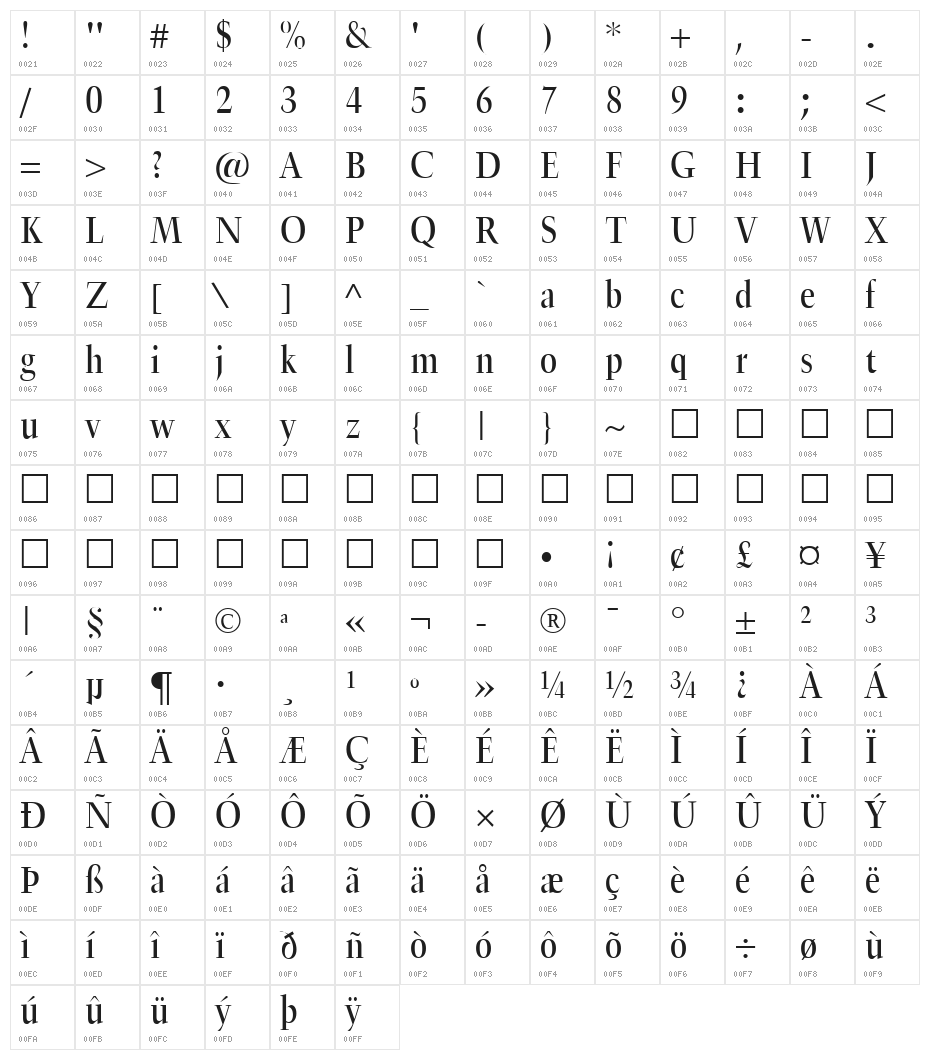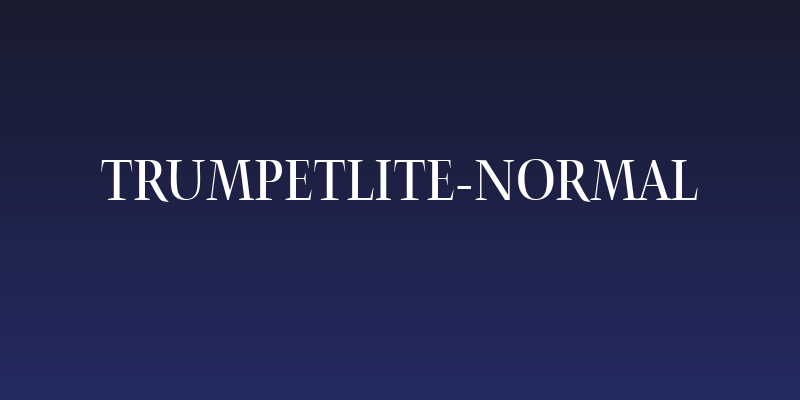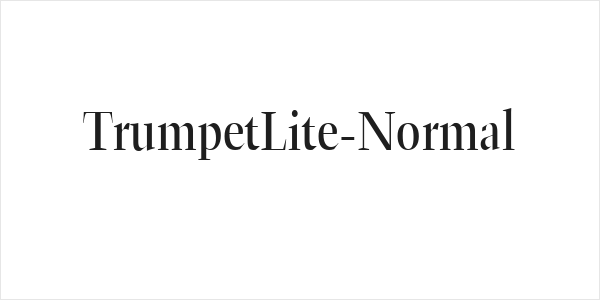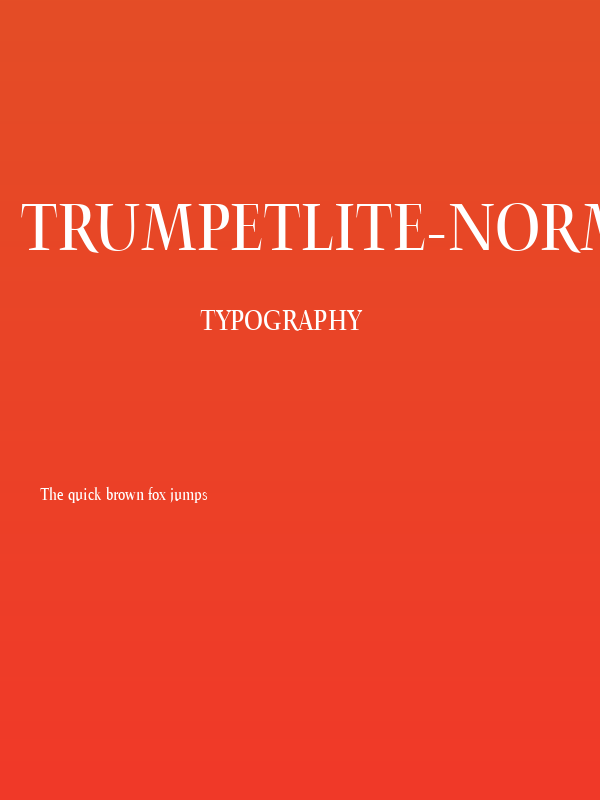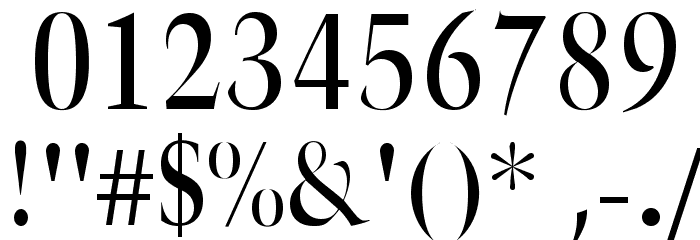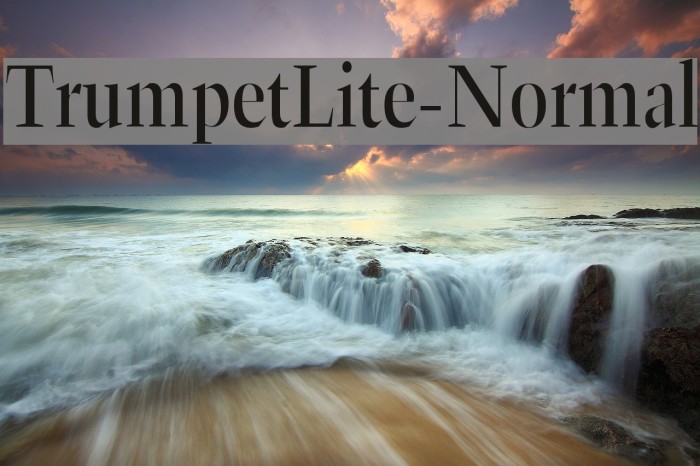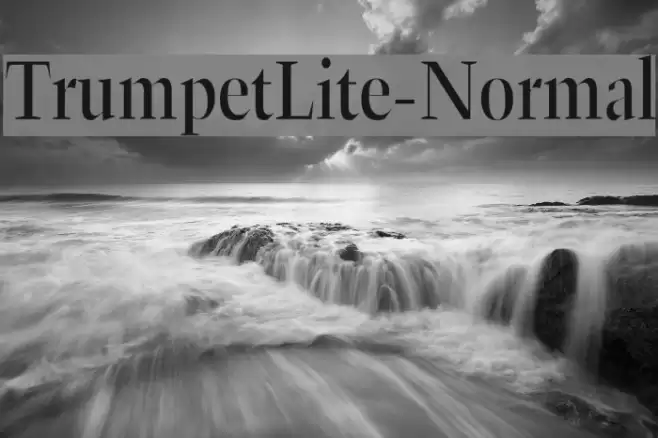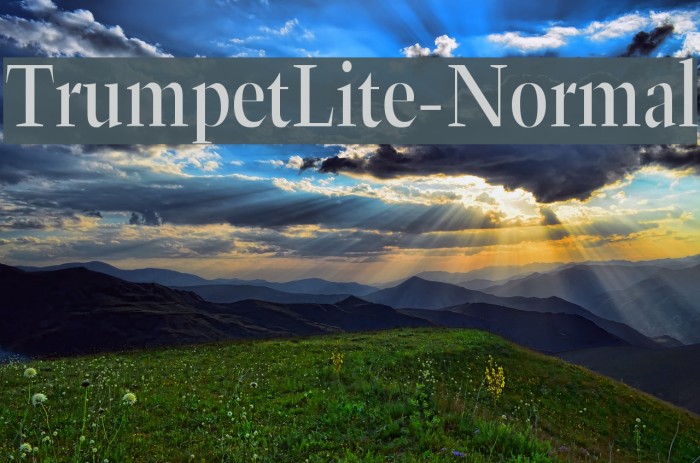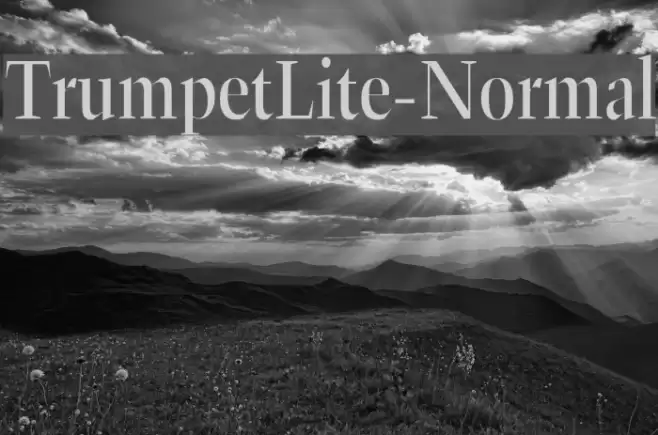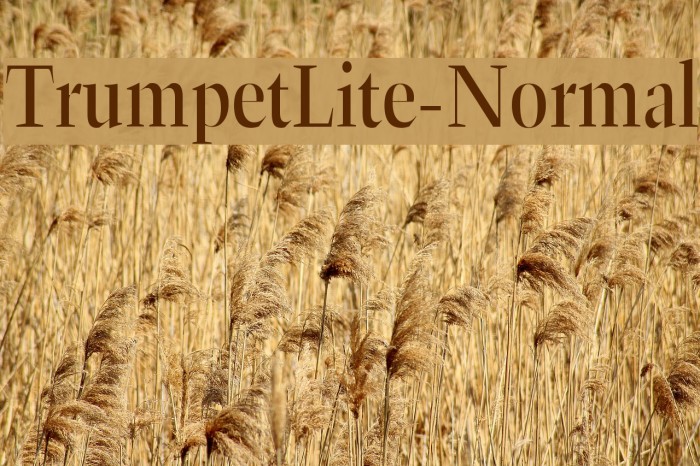
TrumpetLite-Normal Font
TrumpetLite-Normal Description
This font features a classic serif style with elegant, elongated strokes and a refined appearance. The uppercase letters are bold and commanding, while the lowercase letters maintain a graceful and balanced form. The numerals are distinct and easy to read, with a consistent weight that complements the letters. The special characters are well-integrated, maintaining the overall aesthetic of the font. The serifs are pronounced, adding a touch of sophistication and tradition. This font is versatile, suitable for both formal and creative applications, offering a timeless appeal.
| Categories | Serif |
| Overall Style | Classic |
| Use Case | Headlines, Body text, Logos |
| Proposed Projects | Ideal for editorial design, book covers, formal invitations, and branding projects that require a touch of elegance. |